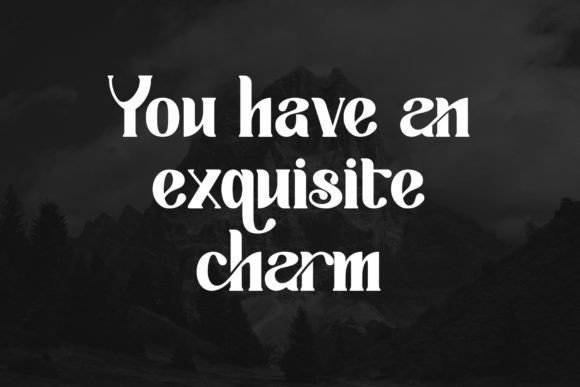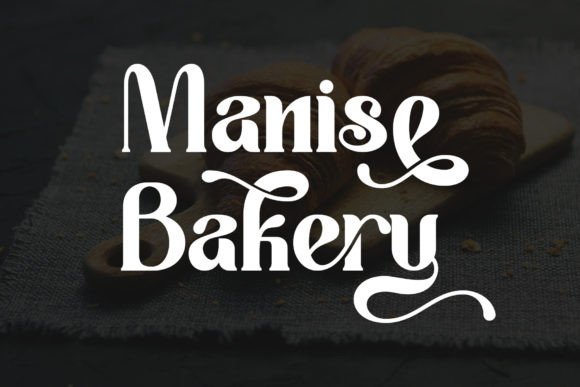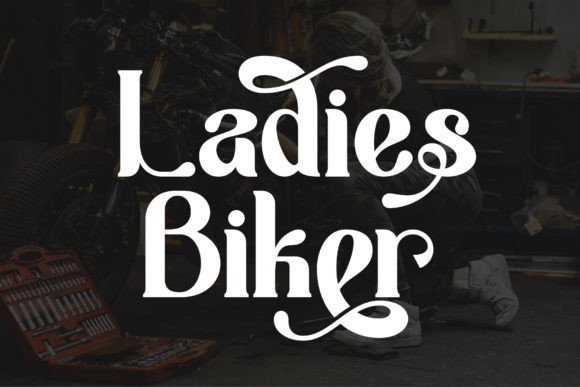
Introduction to Reality Stone Font
Have you ever been working on a creative project, pouring your heart and soul into a design, only to feel like something’s missing? That’s when the perfect font can make all the difference. Imagine having a tool that can elevate your design from ordinary to extraordinary, and make your message stand out in a crowded space. That’s exactly what the Reality Stone Font can do for you.
As a designer, you know how crucial it is to have a high-quality font that can convey your message with authority and sophistication. The Reality Stone Font is a game-changer, offering a unique blend of strength and elegance that’s perfect for a wide range of creative projects. Whether you’re working on a branding project or a YouTube thumbnail, this font is sure to captivate your audience and leave a lasting impression.
Key Features of Reality Stone Font
- High-quality vector graphics: This font features intricate details and textures, making it ideal for designs that require a premium look and feel.
- Perfect for creative projects: This font is designed to add a unique touch to your designs, making it an excellent choice for creative projects, branding, and design resources.
Honest Review: Reality Stone Font
I recently had the chance to work with the Reality Stone Font, and I must say it’s been a game-changer for my creative project. As a designer, I’m always on the lookout for high-quality design resources that can elevate my work.
- ✨ The font itself is incredibly high-quality, with crisp lines and a unique aesthetic that adds a touch of sophistication to any project.
- ⚠️ The font is not as extensive as some other font collections, which may limit its versatility in certain design scenarios.
- ⚠️ Some users may find the font’s unique style to be a bit too bold or overwhelming, so it’s essential to use it thoughtfully.
Overall, I’m thoroughly impressed with the Reality Stone Font. Its high-quality design and versatility make it a valuable addition to any designer’s toolkit. While it may have some limitations, I believe it’s a solid choice for designers working on creative projects that require a unique touch.
Reality Stone Font
The Reality Stone Font is a unique and creative design resource that can add a touch of sophistication to any project. With a high-quality, transparent background, this font is perfect for designers looking for a versatile and stylish option.
Tips for Getting the Most Out of Reality Stone Font
To get the most out of the Reality Stone Font, use it in combination with other design elements to create a cohesive and visually appealing design. Experiment with different font sizes, colors, and arrangements to find the perfect balance.
The Reality Stone Font is perfect for a variety of projects, including business cards, brochures, and website design. Its high-quality and transparent background make it ideal for use on images and backgrounds, adding an extra layer of sophistication to your design.